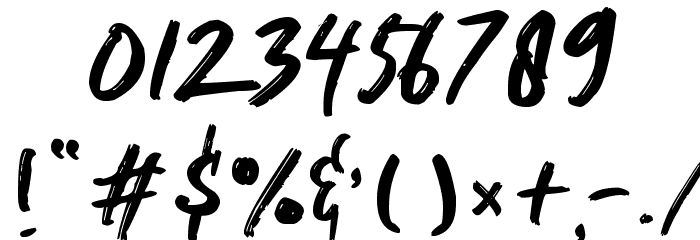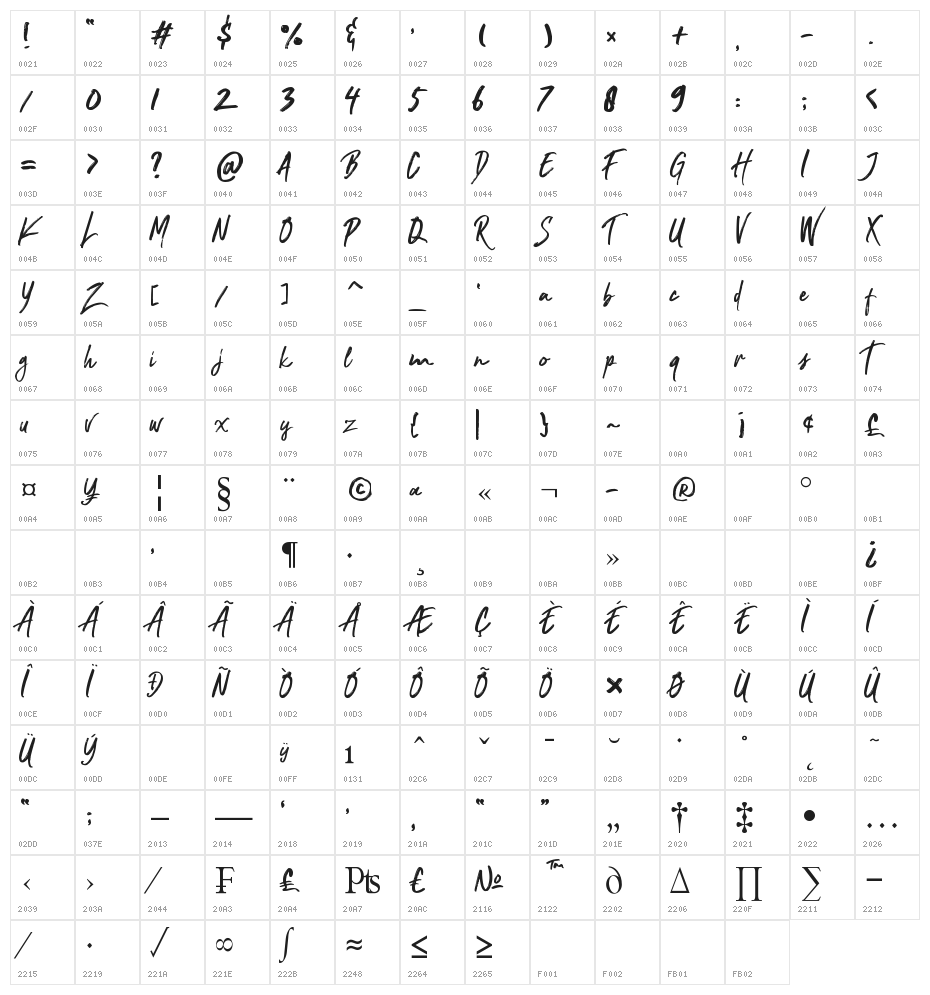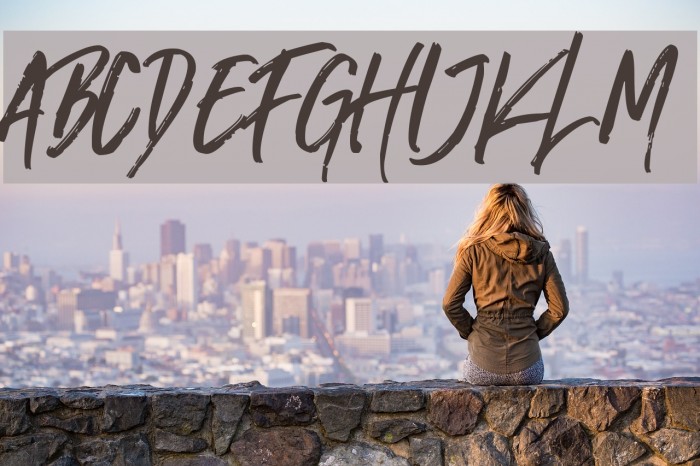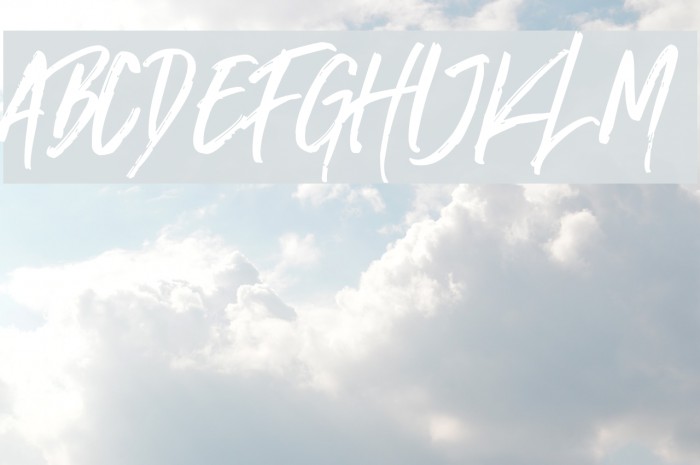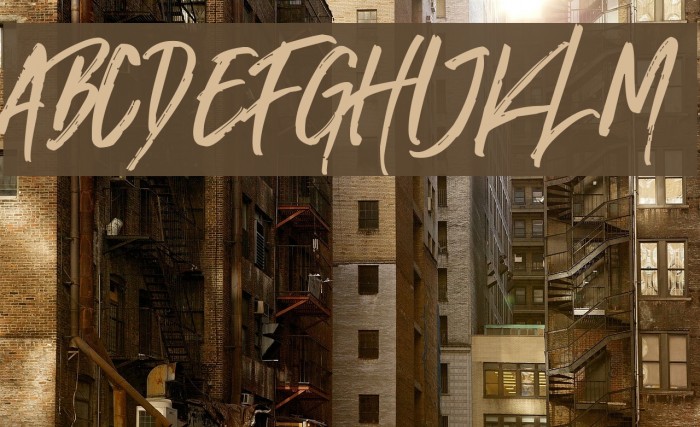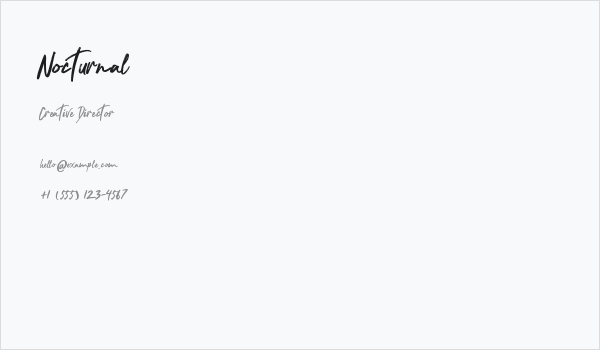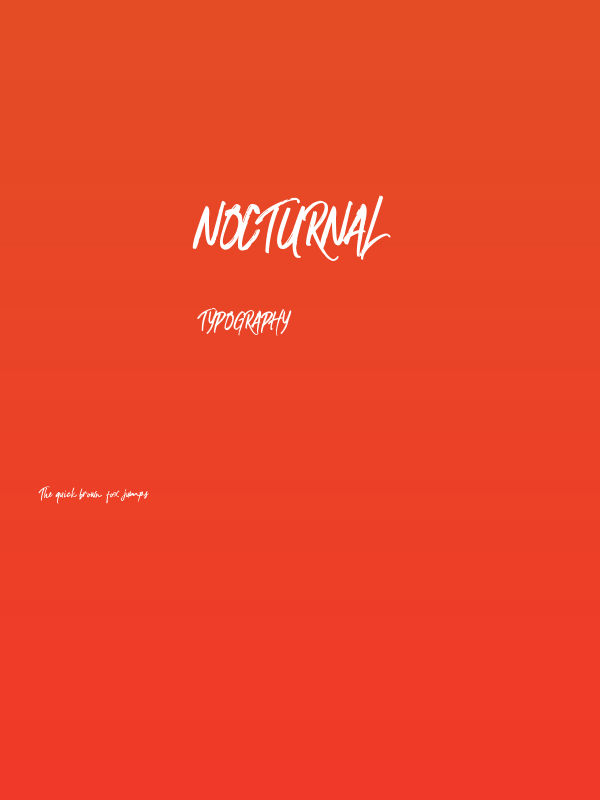
Nocturnal Font
Nocturnal Description
This font exudes a bold and expressive handwritten style, characterized by its dynamic brush strokes and fluid movement. The uppercase letters are striking and impactful, with a sense of energy and spontaneity. The lowercase letters maintain a cohesive flow, complementing the uppercase with their slightly more restrained yet equally vibrant appearance. Numbers and special characters are crafted with the same artistic flair, ensuring consistency throughout. The overall aesthetic is modern and artistic, making it suitable for projects that require a personal and creative touch.
| Proposed Projects | Ideal for branding, posters, invitations, and any design that benefits from a personal, artistic touch. |